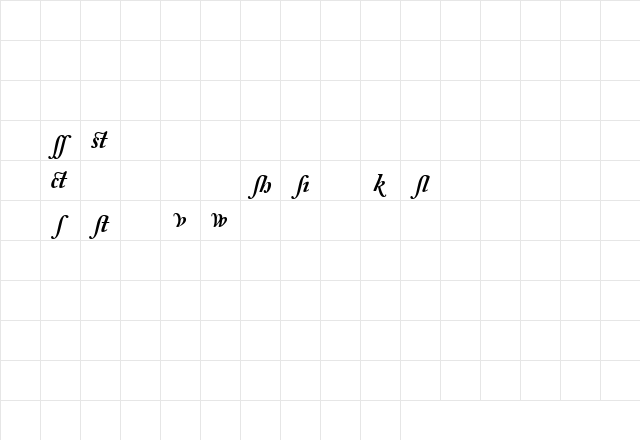
CaslonAlternateBlackSSK Italic
Design Context for CaslonAlternateBlackSSK Typeface
CaslonAlternateBlackSSK takes a measured approach to typography — its balanced proportions and neutral character make it a reliable workhorse for both digital and print work. The slanted form adds forward momentum and visual energy.